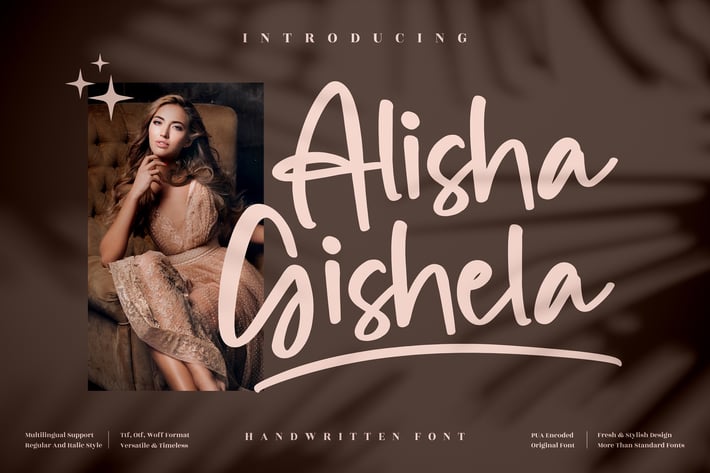
Alisha Gishela Handwritten Font
Alisha Gishela is a graceful handwritten font with smooth, elegant strokes — perfect for adding a touch of sophistication to your creative projects. Its natural handwritten flow brings warmth and authenticity, making it ideal for both digital and printed designs.
Elegant and stylish handwritten design
Smooth curves with natural flow
Perfect readability for both large and small text
Branding projects
Elegant invitations
Modern business cards
Typography design
Wedding and event stationery
Logo and packaging design
A timeless handwritten font that captures both class and charm — elevate your brand with Alisha Gishela’s elegant flow.